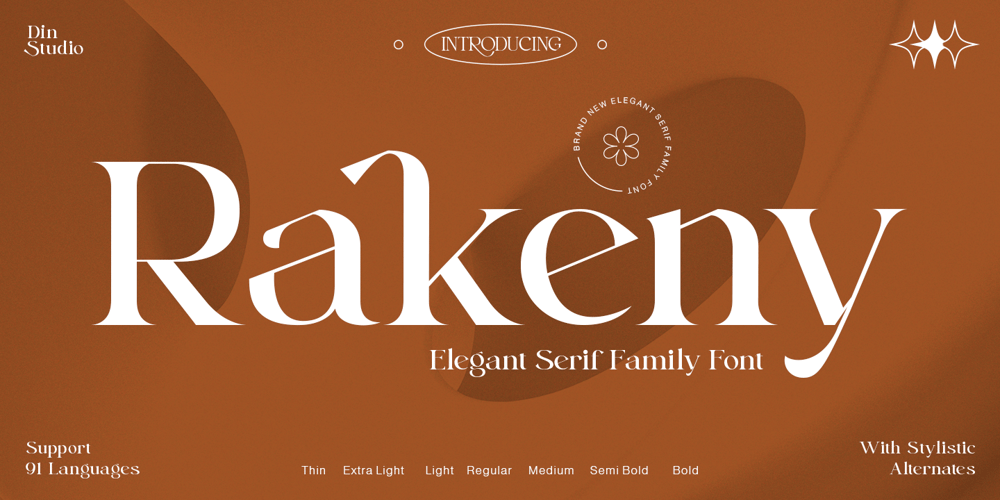
Rakeny Font Family was designed by Donis Miftahudin and published by Din Studio. Rakeny contains 7 styles and family package options. Wanna to make your project spark? Ready to make your branding bold? Looking for a fabulous, stylish, andmodern font? Then, we’ve got what you want.Rakeny-A Serif Font FamilyRakeny is a package that will makes you feeling grateful. With this family you will get many options to maximize your designs with stylish fonts. Rakeny is a package of modern serif fonts style combines with a little bit copperplate to contemporary typeface with a dancing baseline, classic and elegant touch. Can be used for various purposes.such as headings, signature, logos, menus, social media graphics, t-shirt, letterhead, signage, lable, news, posters, badges etc.Features: Multilingual Support PUA Encoded Numerals and Punctuation Thank you for downloading premium fonts from Din Studio